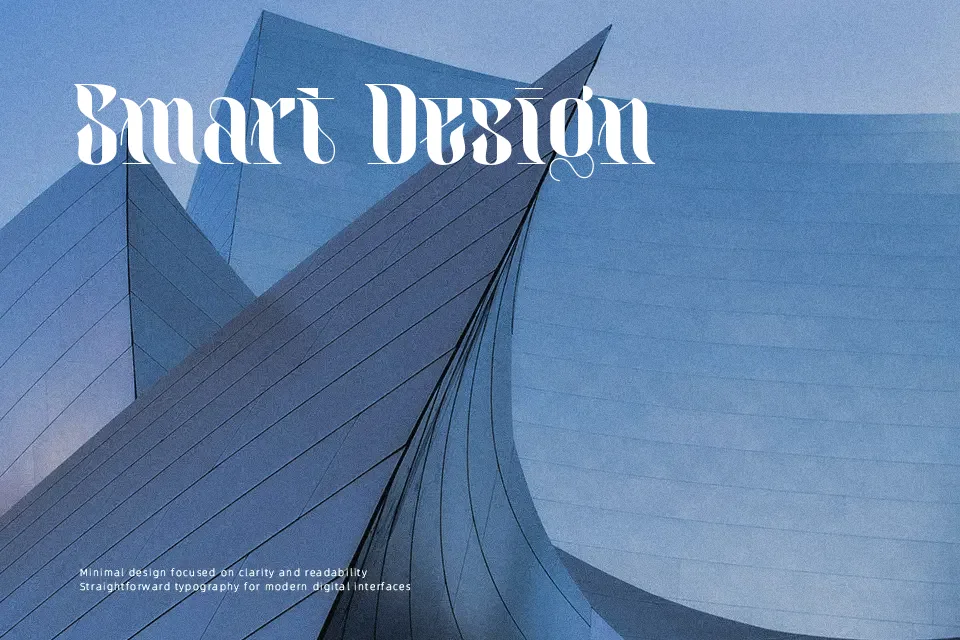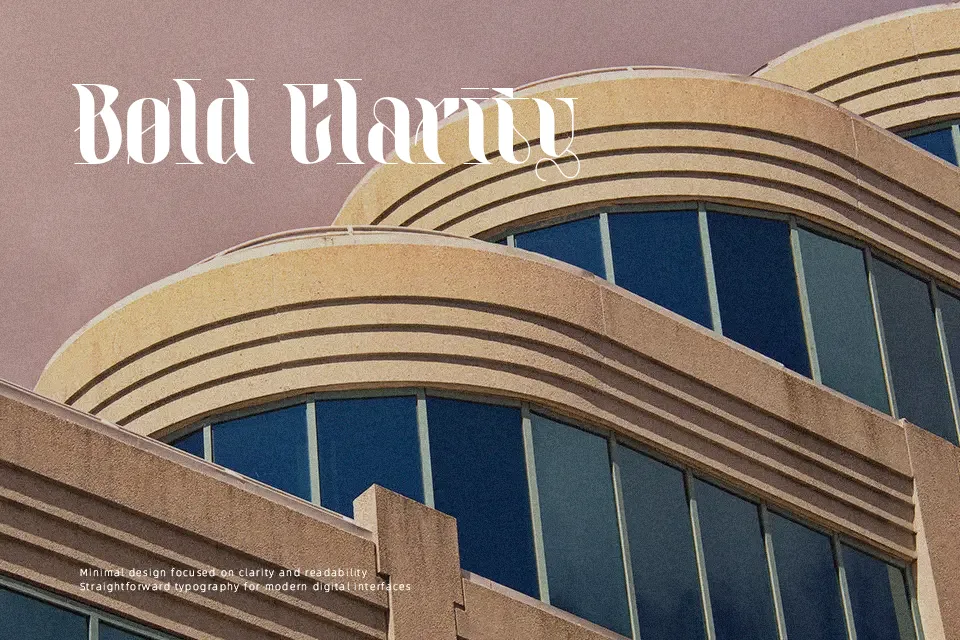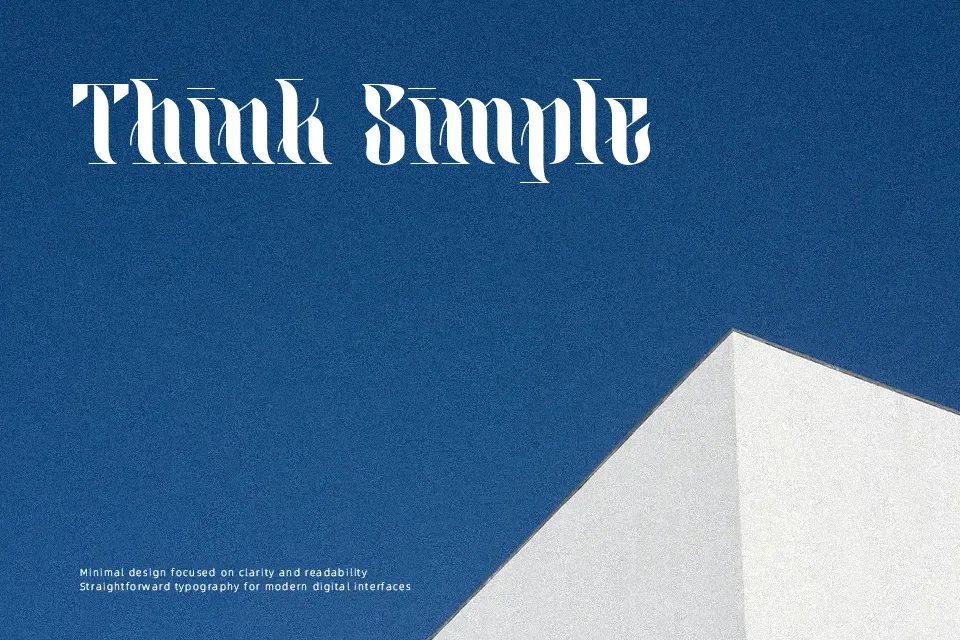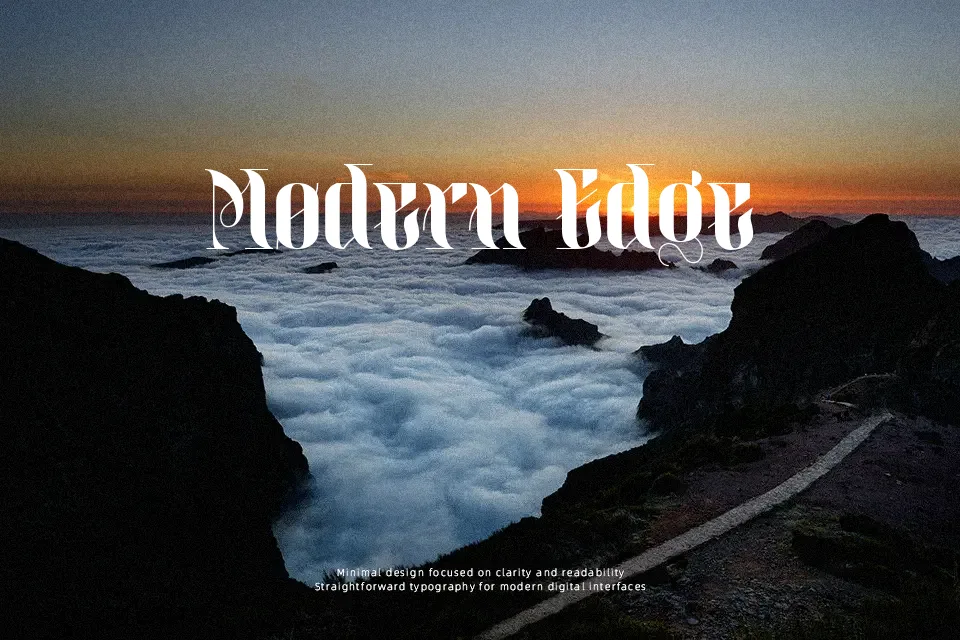
Realitas Font
When evaluating the structure of Realitas Font, the experimental display serif immediately stands out through its bold, contemporary strokes and unique letterform proportions. The expressive lines and balanced spacing create a strong visual rhythm that commands attention, making the typeface highly effective for striking poster designs, modern packaging, and creative branding. Because the letterforms are heavily stylized, the design excels at grabbing focus but becomes harder to process in continuous reading. The unconventional shapes reduce clarity at smaller scales, meaning it is less suitable for dense body text or corporate reports. Ultimately, the robust strokes maintain excellent visibility in grand headers where aesthetic impact is the primary goal.
striking poster designs, modern product packaging, creative editorial headers, contemporary logo design
dense paragraph text, corporate annual reports, small interface labels, spreadsheet data
Perfect for branding, headline, and packaging, with a artistic and decorative style.